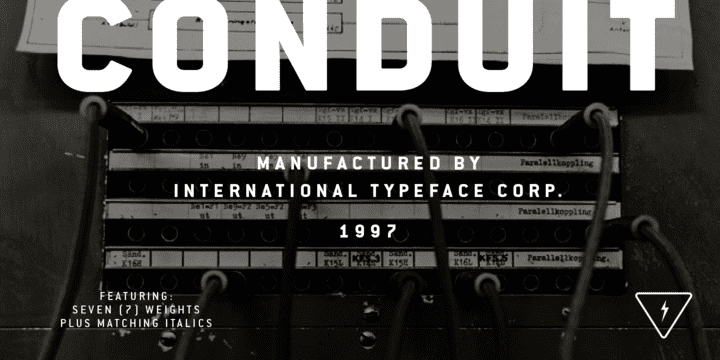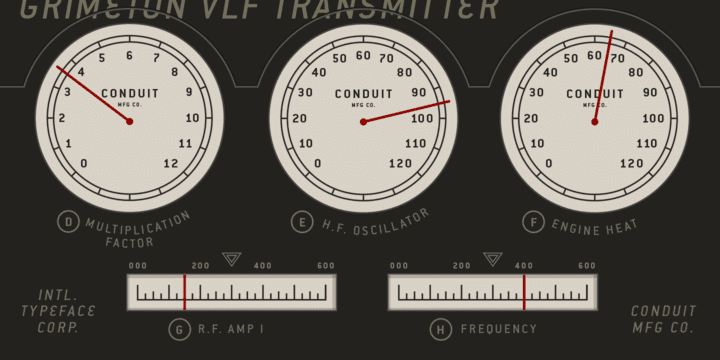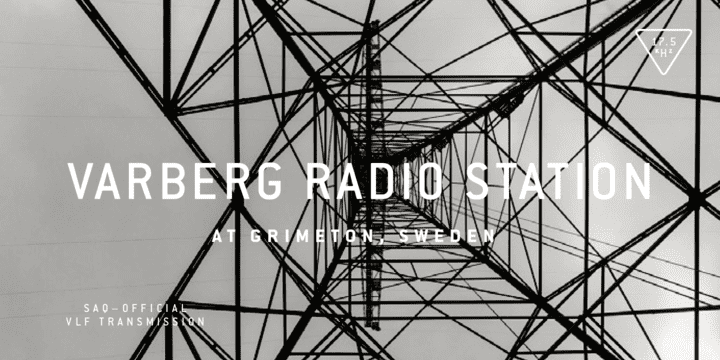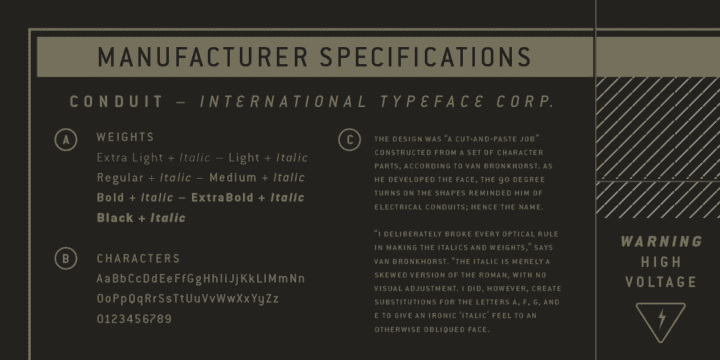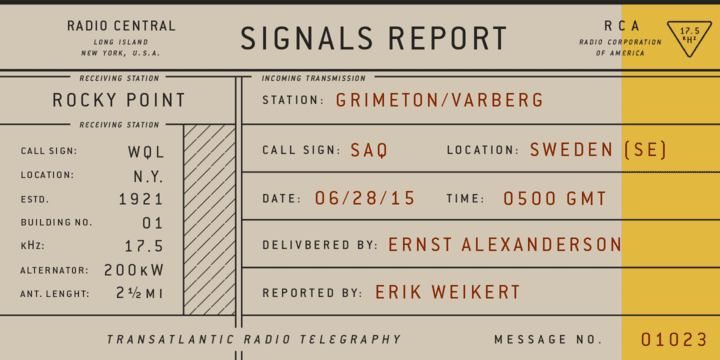
ITC Conduit Pro Complete Family (14 fonts)
Brilliantly assembled from a typographic kit of parts, ITC Conduit's letterforms project a coolness, without feeling austere or unapproachable. It's an excellent choice for publication, packaging, or even wayfinding design systems.
The ITC Conduit collection is available in 14 styles, with weights from extra light to black—all with matching italic designs. An easy, efficient way to bolster your go-to typographic arsenal, add it to your type library today!